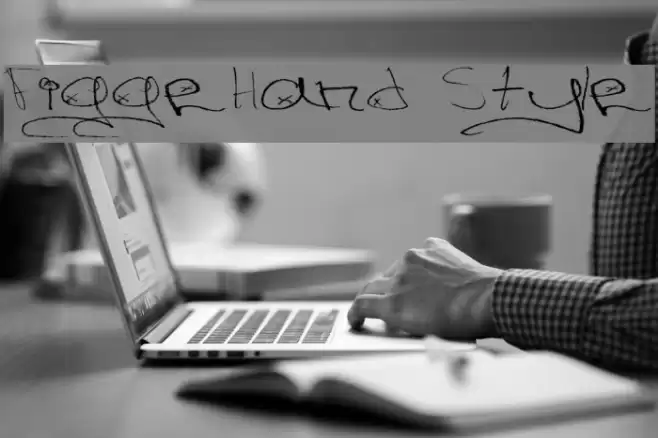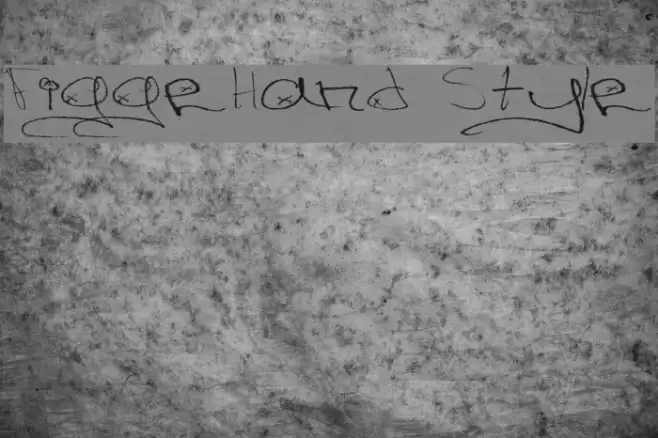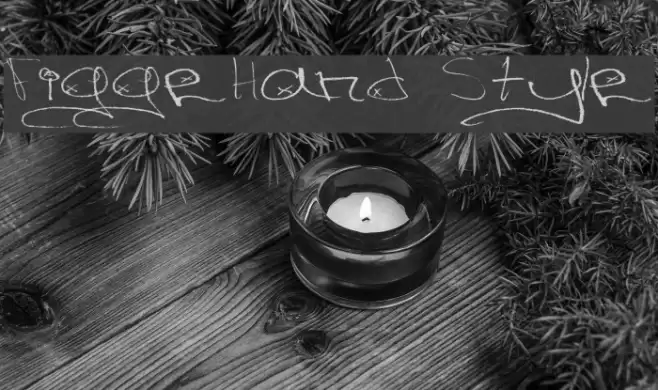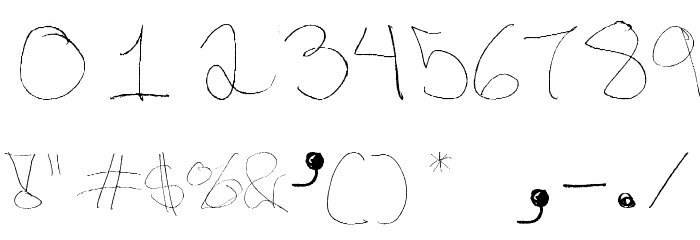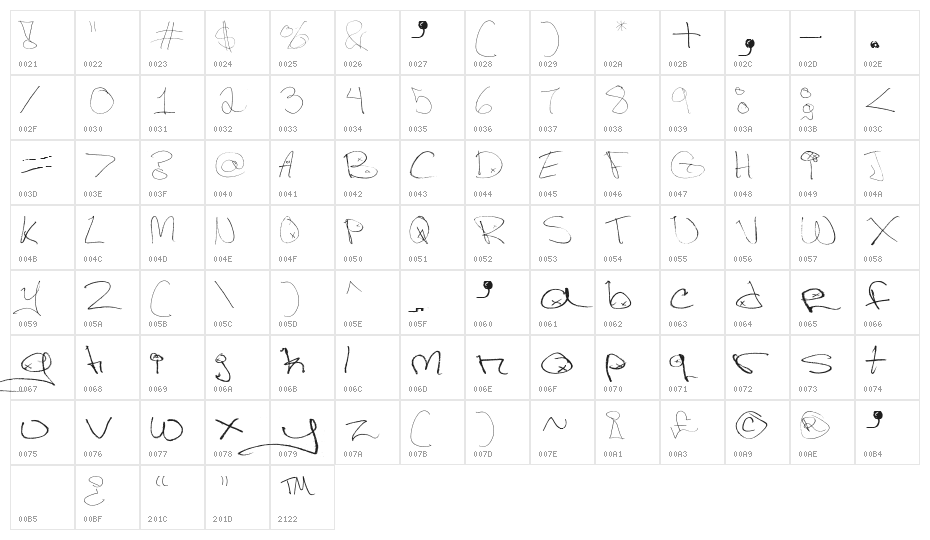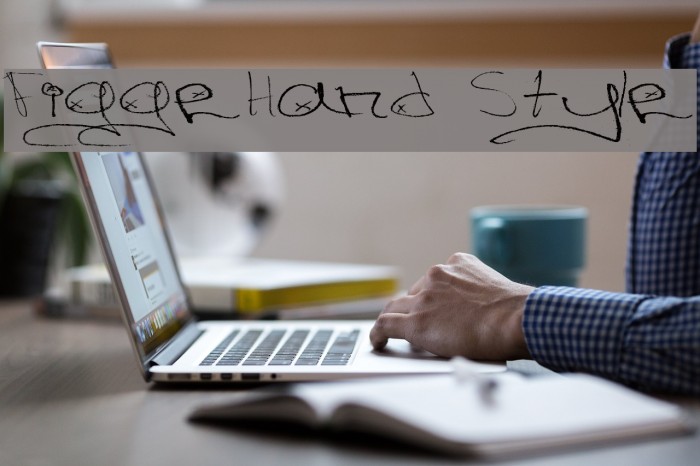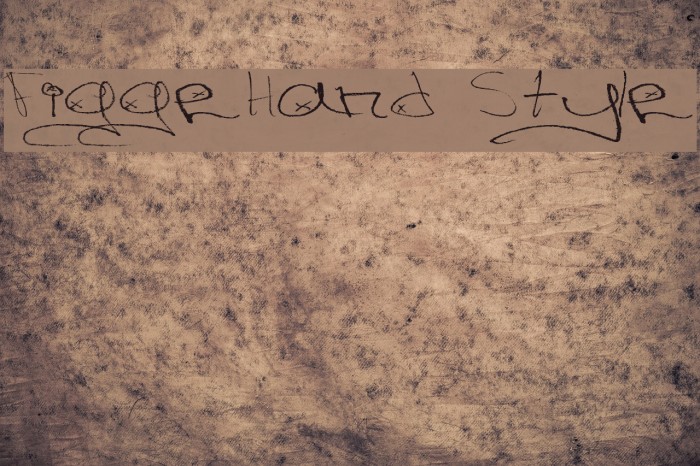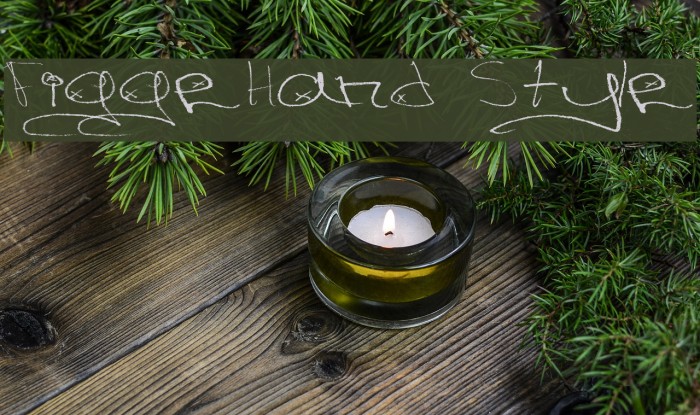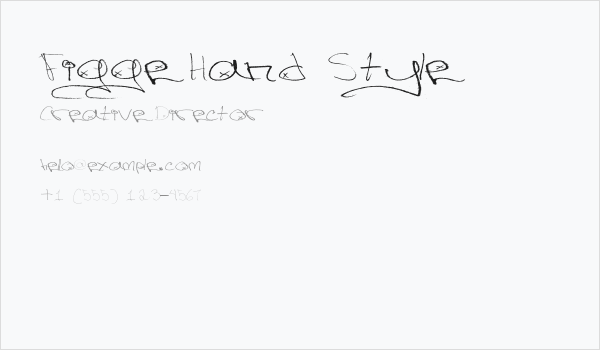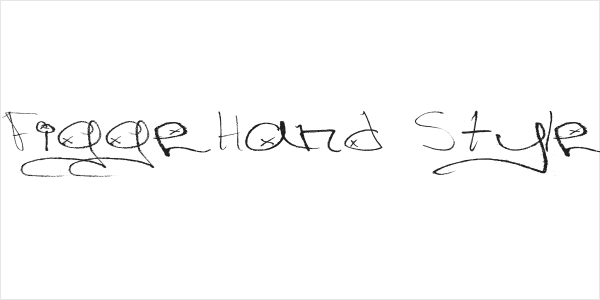
Figge Hand Style Font
Figge Hand Style Description
This font exudes a playful and artistic flair, characterized by its hand-drawn, whimsical style. The letters are crafted with a freeform, organic approach, featuring irregular strokes and a casual, flowing appearance. Each character seems to have its own personality, with unique embellishments and varying line thicknesses that add to the overall charm. The uppercase and lowercase letters maintain a consistent style, while the numbers and special characters complement the alphabet with their quirky, imaginative designs. This font is perfect for projects that require a touch of creativity and individuality.
A playful, hand-drawn font with whimsical, artistic strokes from Graffiti fonts.
- Proposed Projects: Ideal for greeting cards, children's book illustrations, creative posters, and artistic branding.
- Use Case: Headlines, Artistic projects, Informal designs